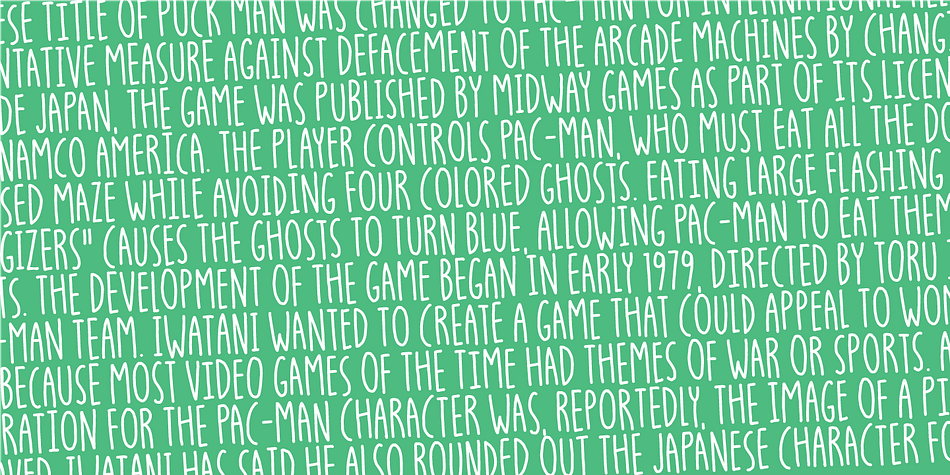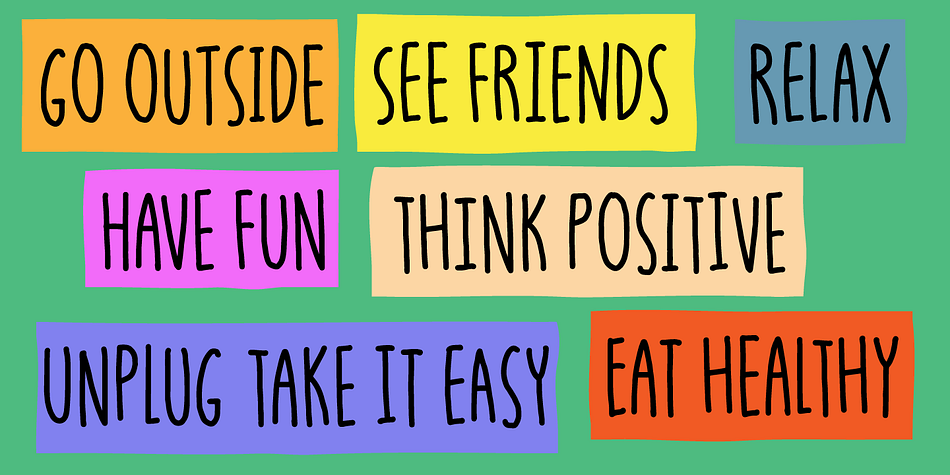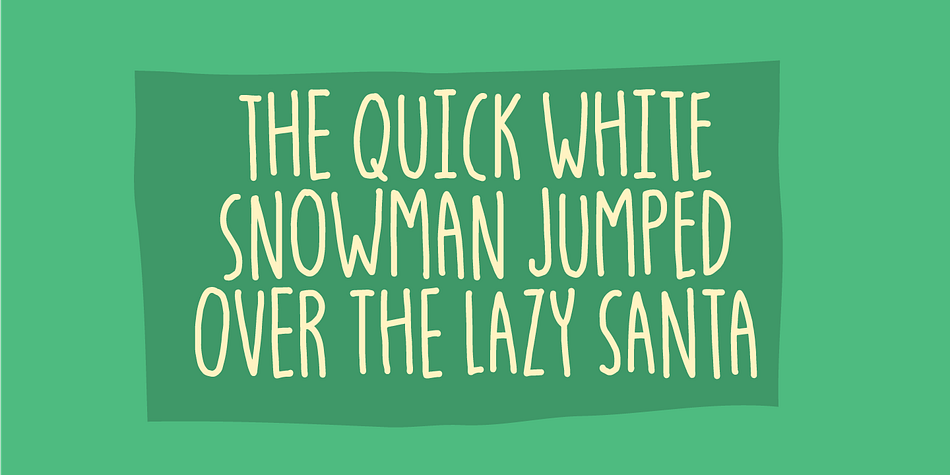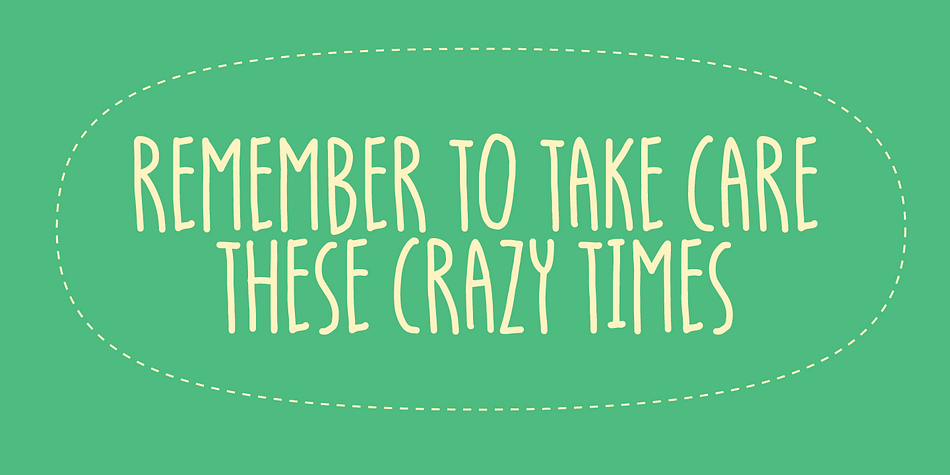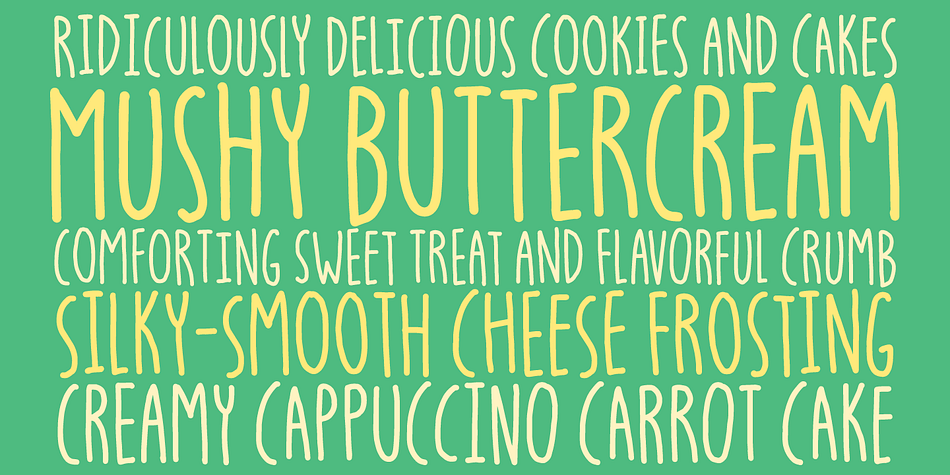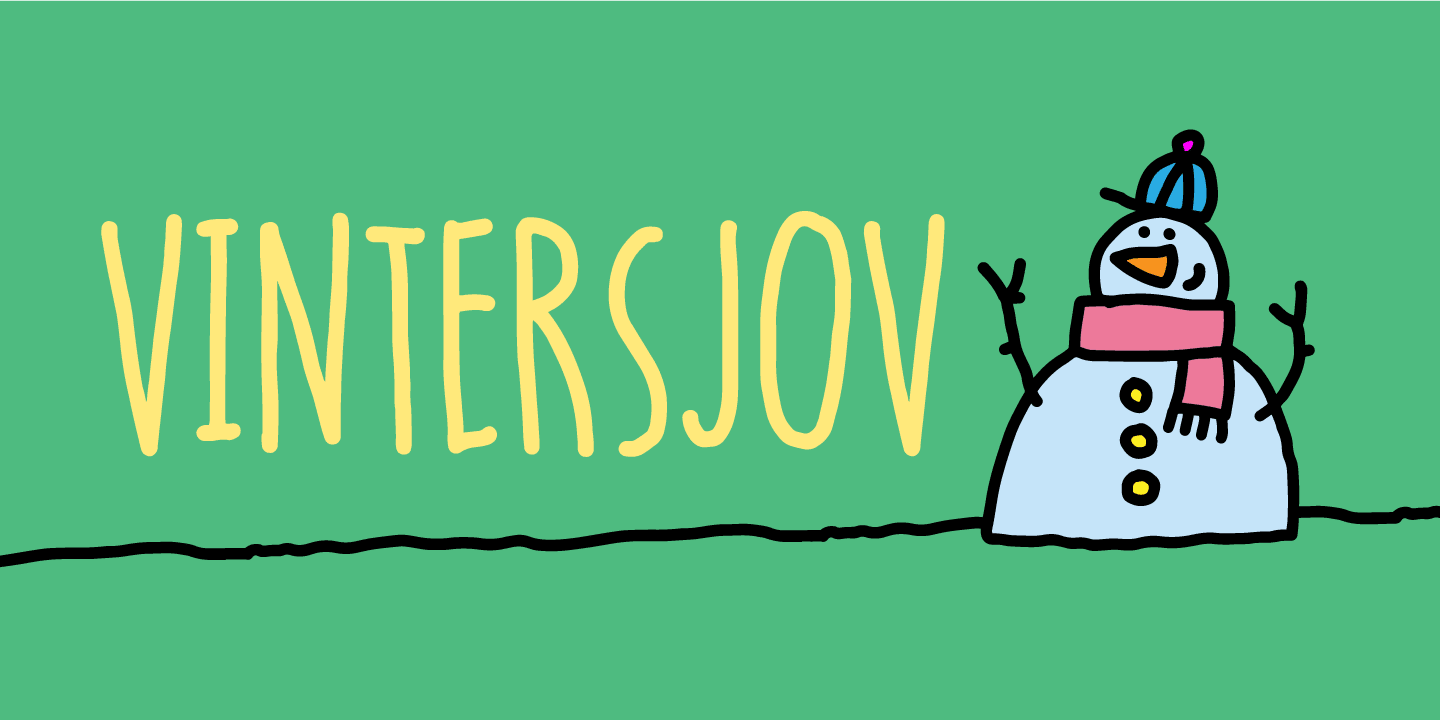
Designed by Jakob Fischer, Vintersjov is a hand drawn font family. This typeface has two styles and was published by Bogstav.
Here’s my tall and thin and brand new winter font (“Vintersjov is “winter fun” in danish)
A super legible and fun font, suitable for things that have got to do with winter. But also spring, summer and fall - in fact mostly anything that needs a lively and handmade look!